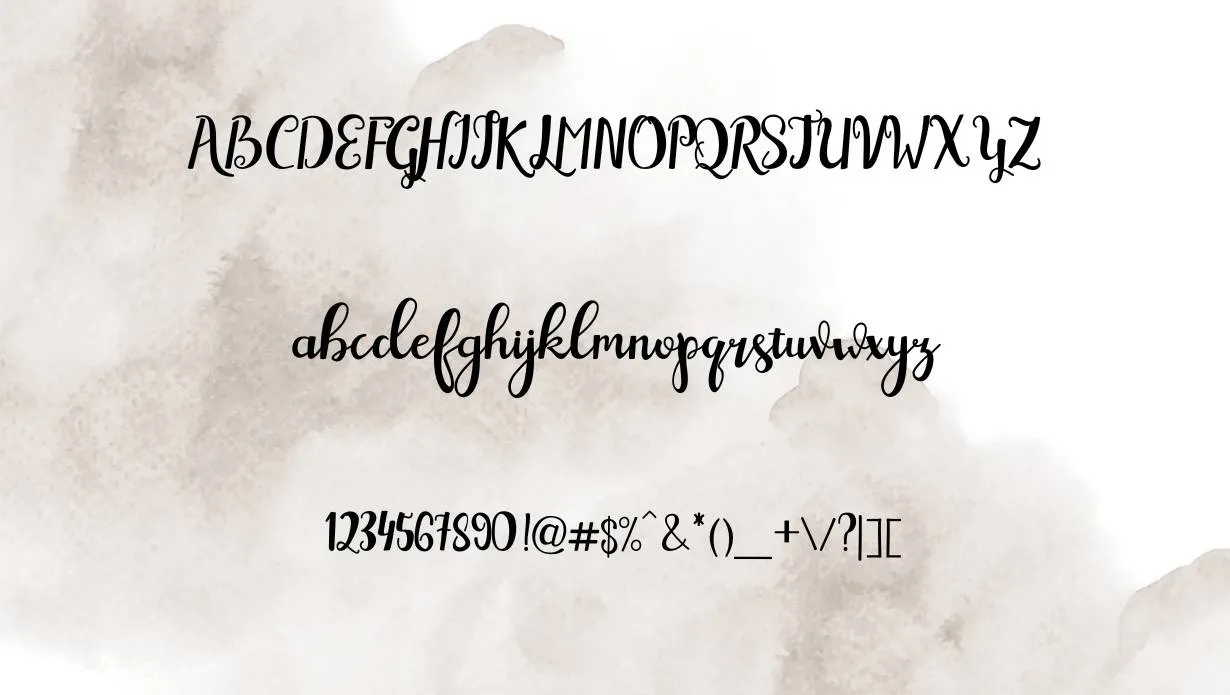
Destiny Font is a versatile typeface that combines elegance and readability. It’s often used for formal documents, book typography, and editorial design.
With its timeless design, Destiny Font is a dependable choice for conveying a sense of tradition and sophistication in your projects. If you desire to make your design project more captivating, I recommend pairing this font with a unique typeface such as the kalam font.
| Name | Destiny Font |
| Designer | Paul Renner |